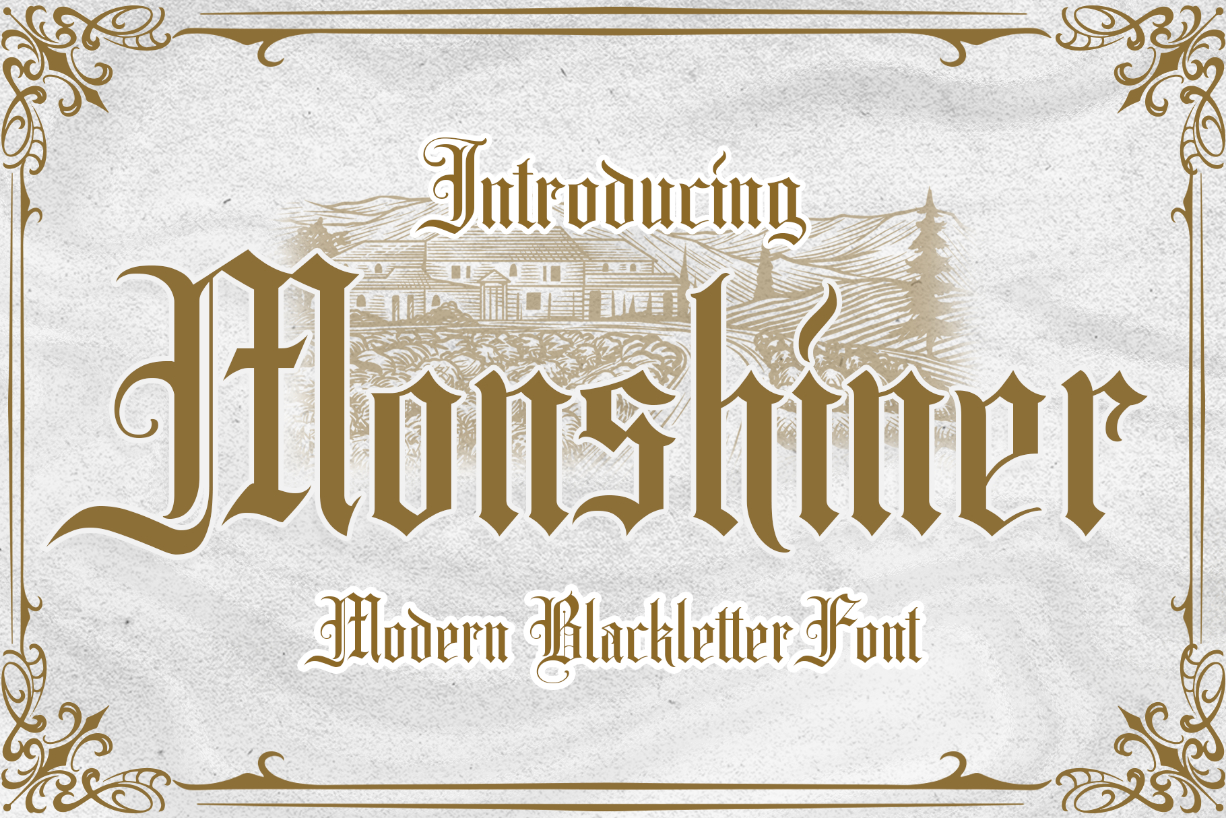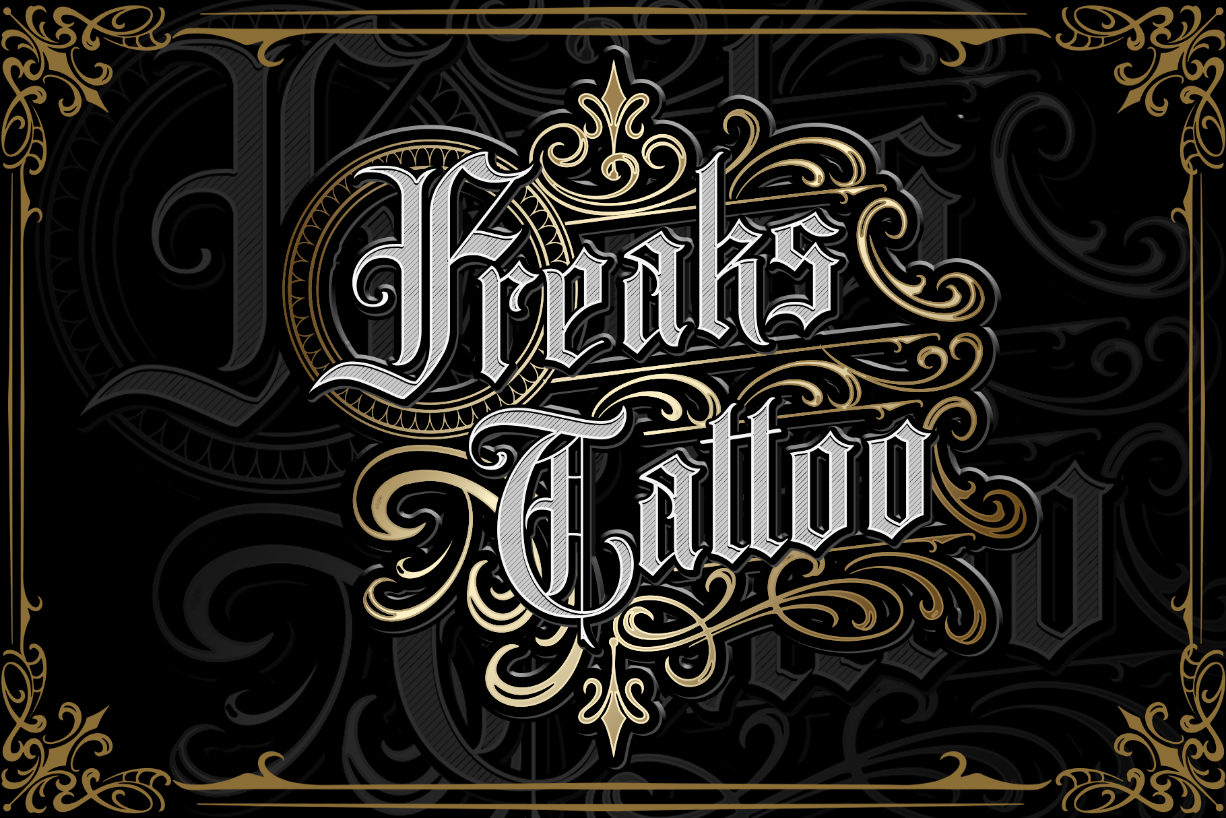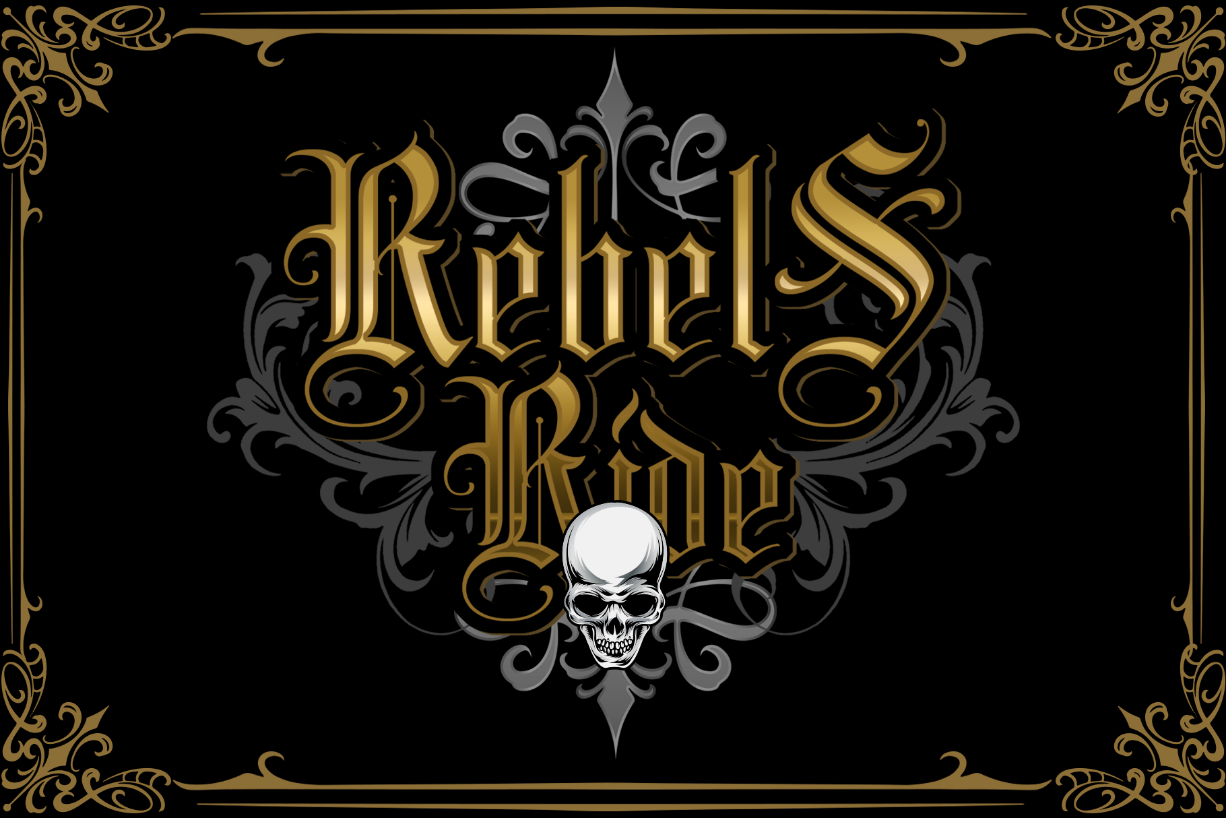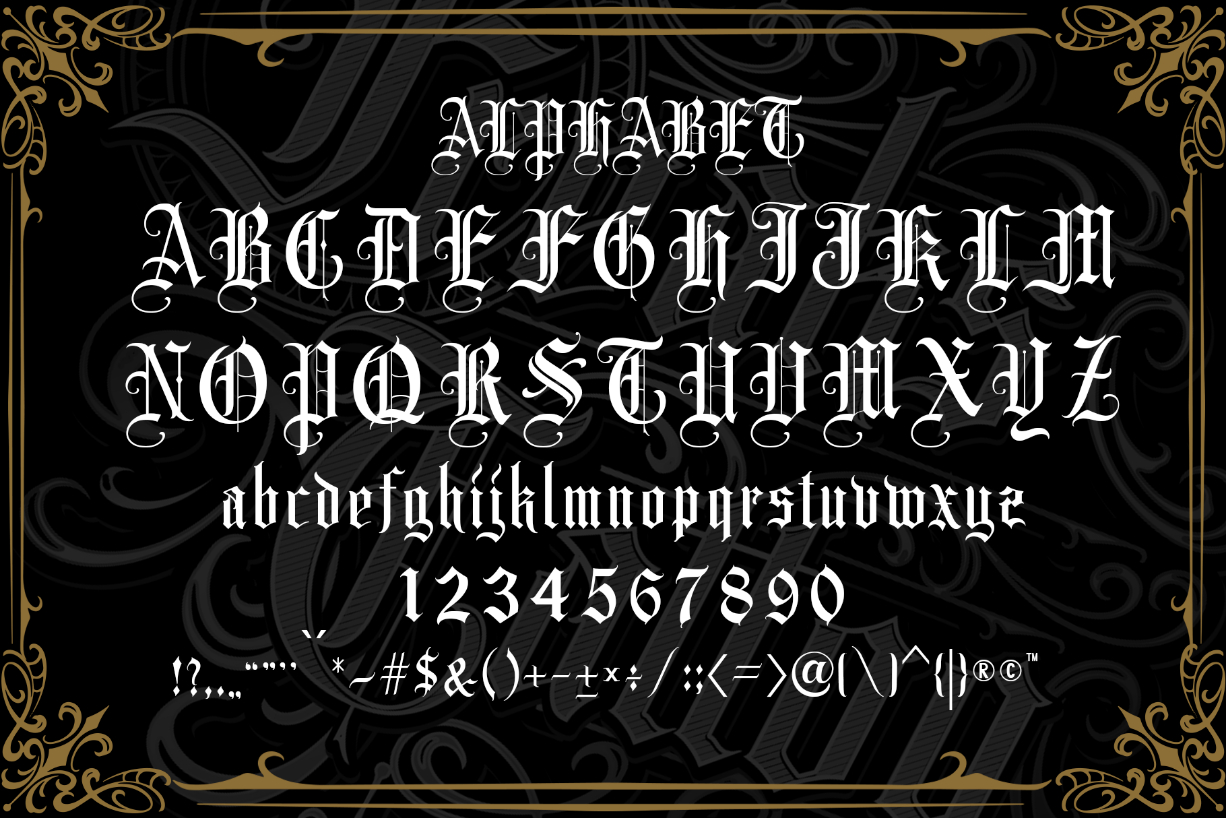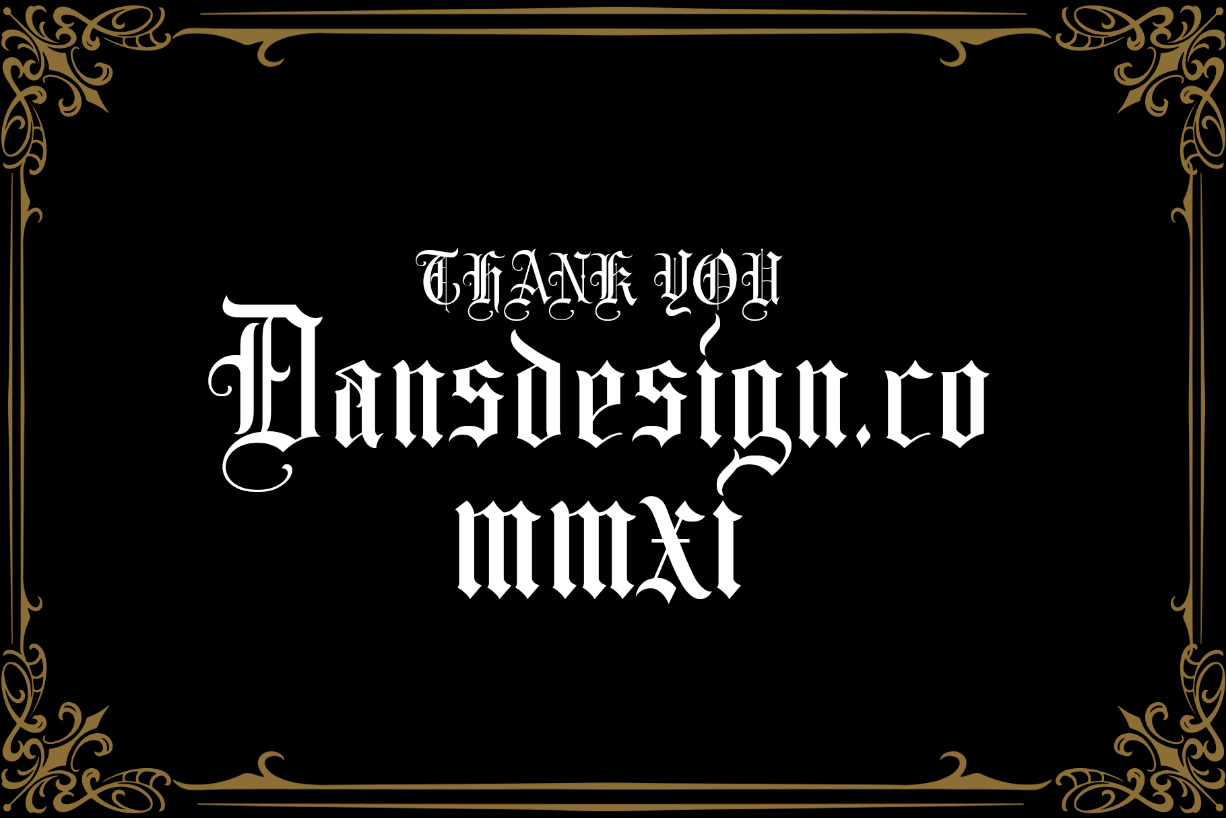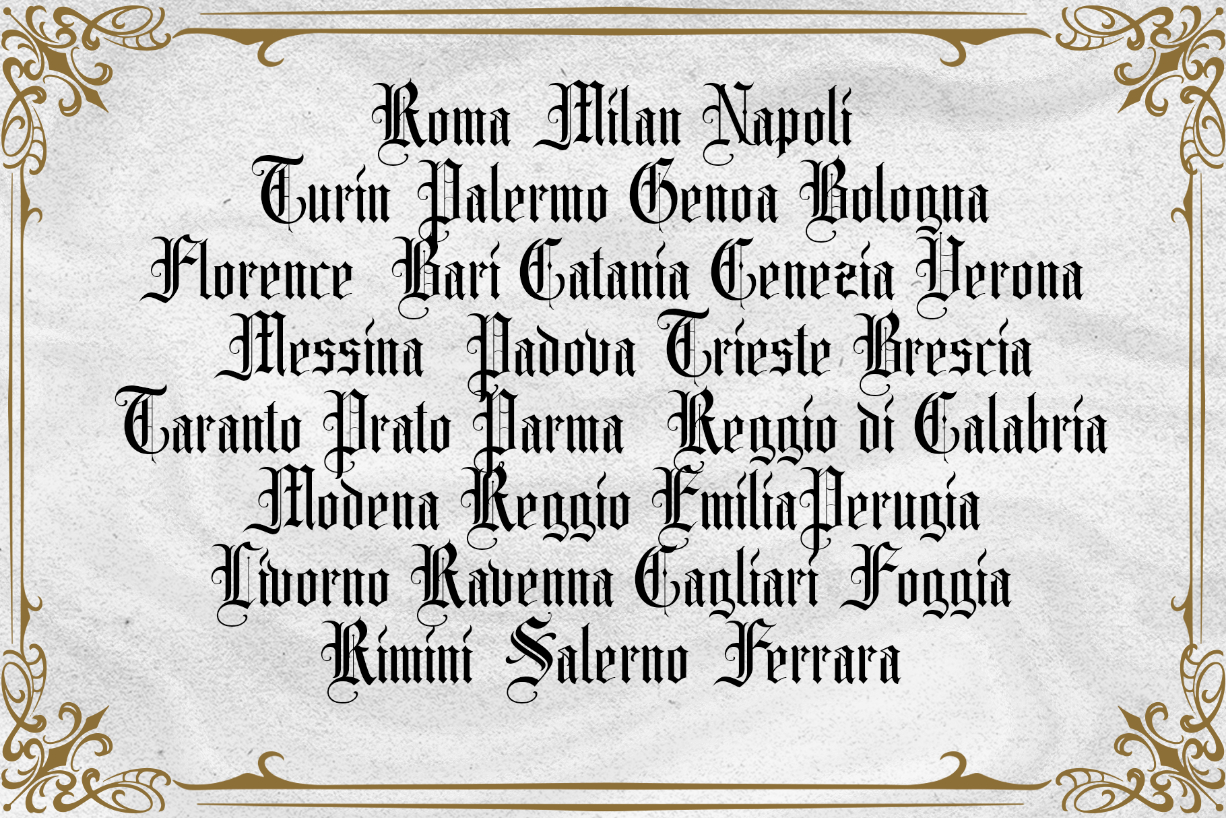
Monshiner Font
About Monshiner Font
Monshiner is a bold and highly detailed blackletter font. No matter the topic, this font will be an incredibly asset to your fonts’ library, as it has the potential to elevate any creation.